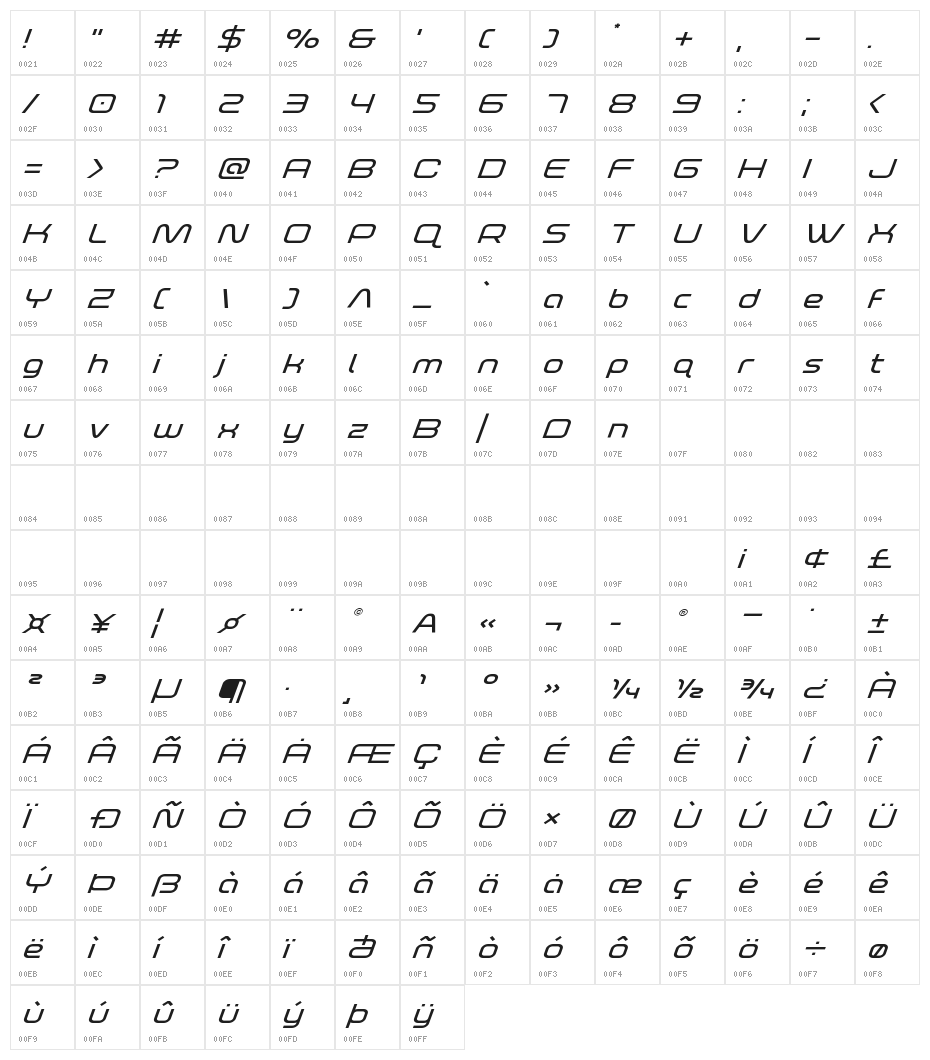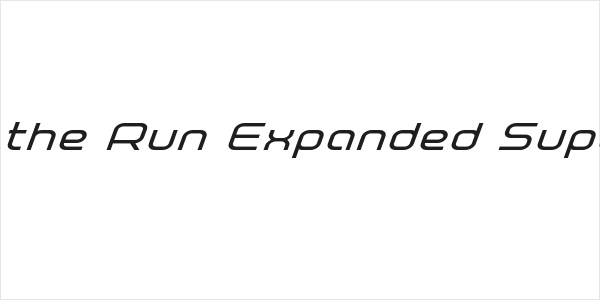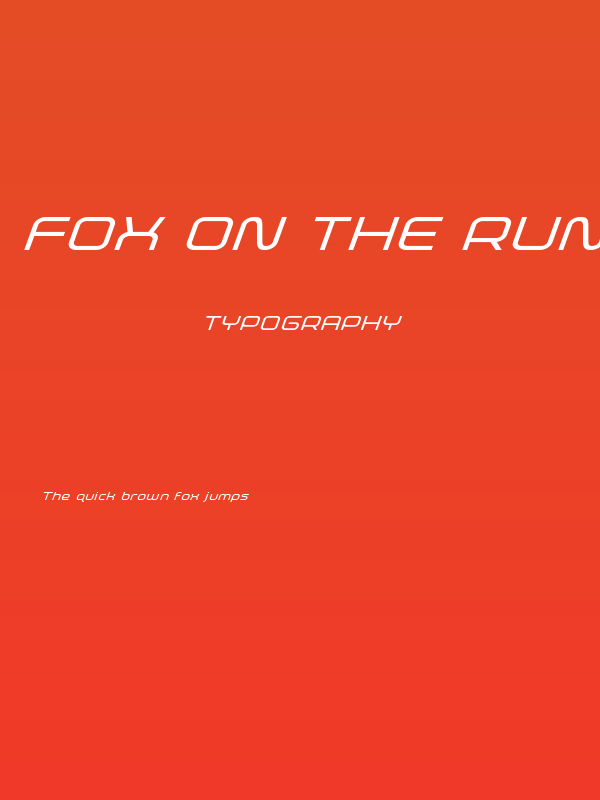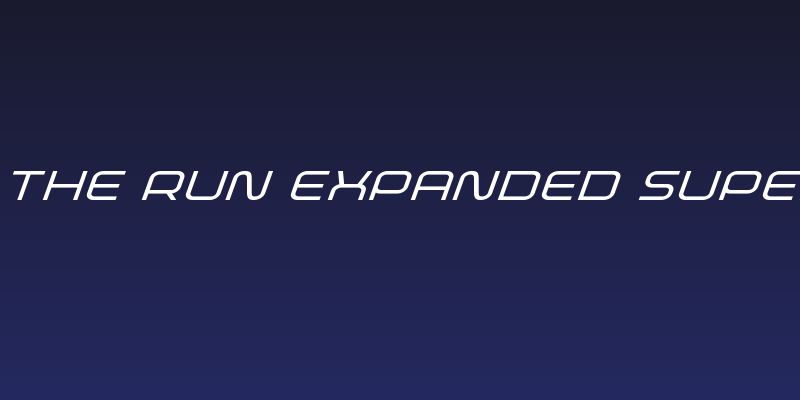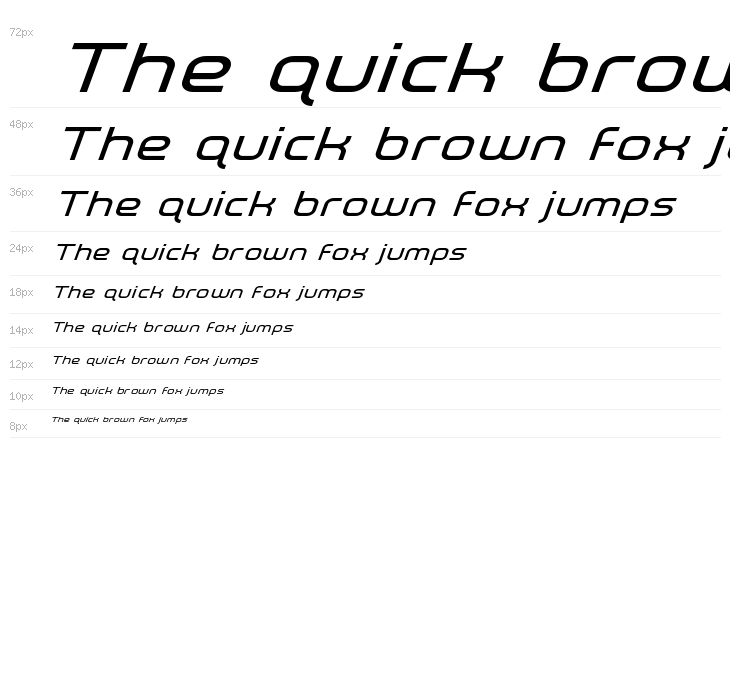
Fox on the Run Expanded Super-Italic Font
Fox on the Run Expanded Super-Italic Description
This font features a sleek, modern design with an italicized style that adds a sense of motion and dynamism. The characters are expanded, giving them a wide appearance that enhances readability and impact. The strokes are consistent in thickness, providing a uniform look across all characters. The font includes both uppercase and lowercase letters, numerals, and a variety of special characters, making it versatile for different uses. Its futuristic and clean aesthetic makes it suitable for projects that require a contemporary and stylish look.
| Use Case | Headlines, Logos, Digital Media |
| Proposed Projects | Ideal for branding, advertising, and digital media projects that require a modern and dynamic appearance. |